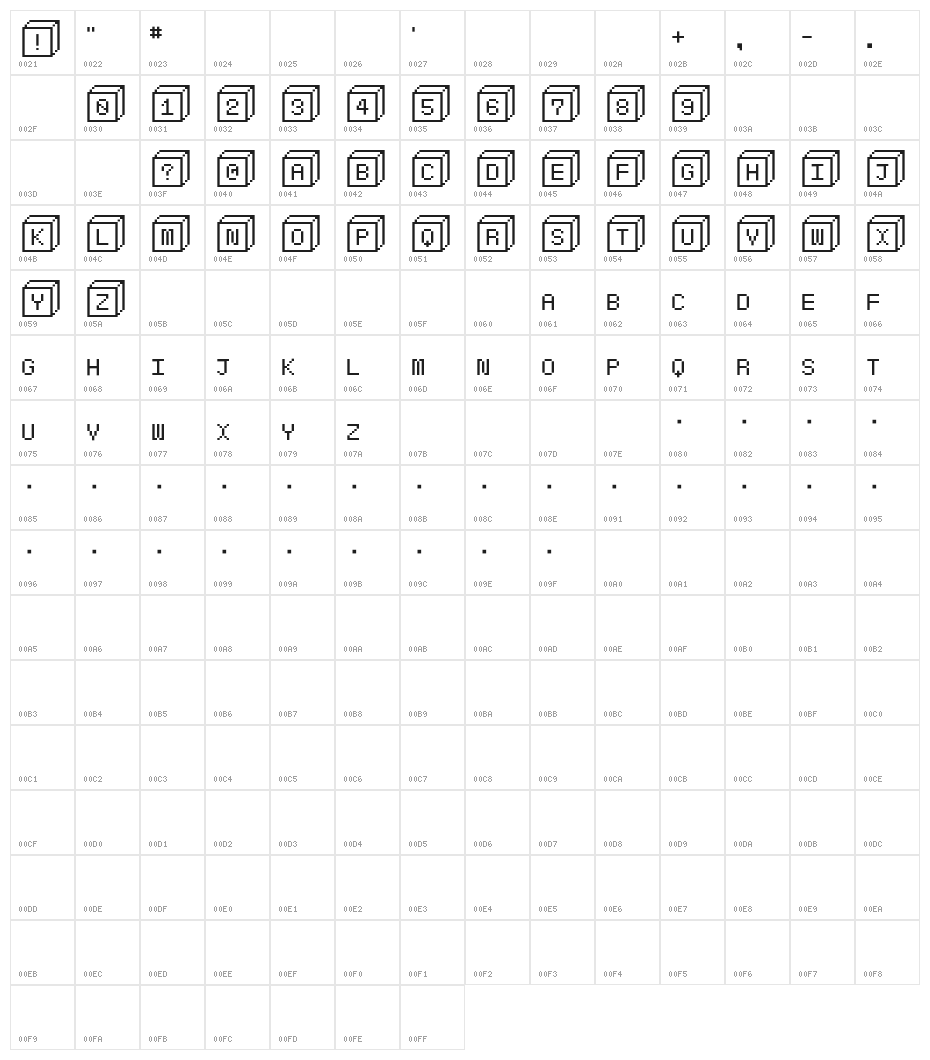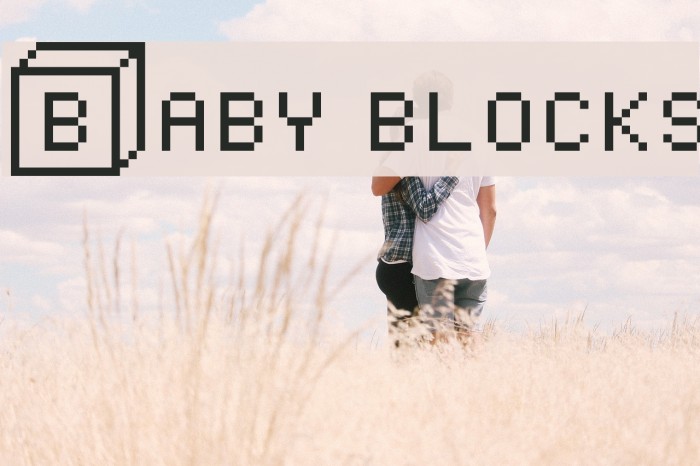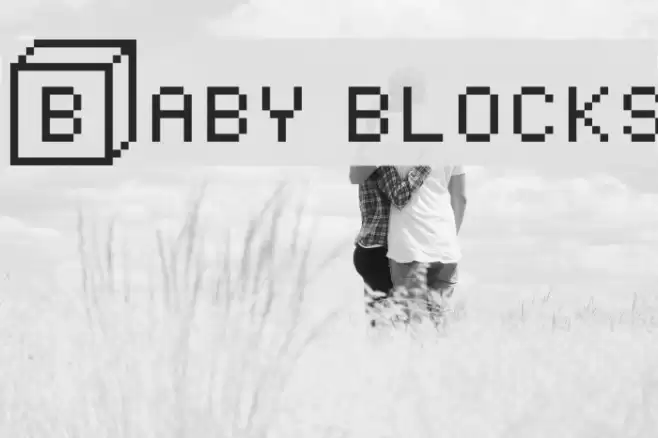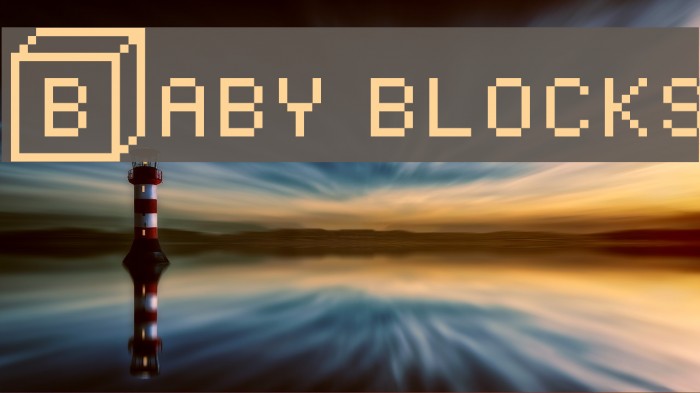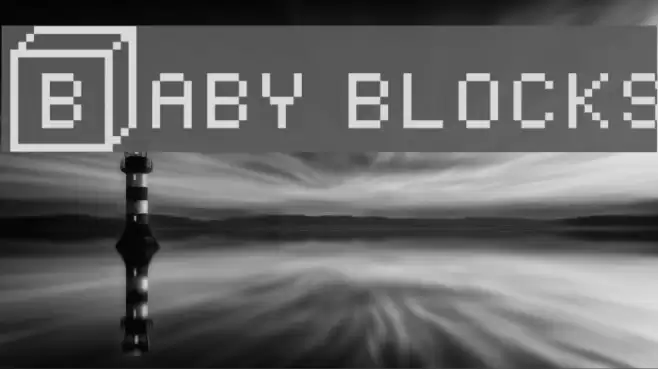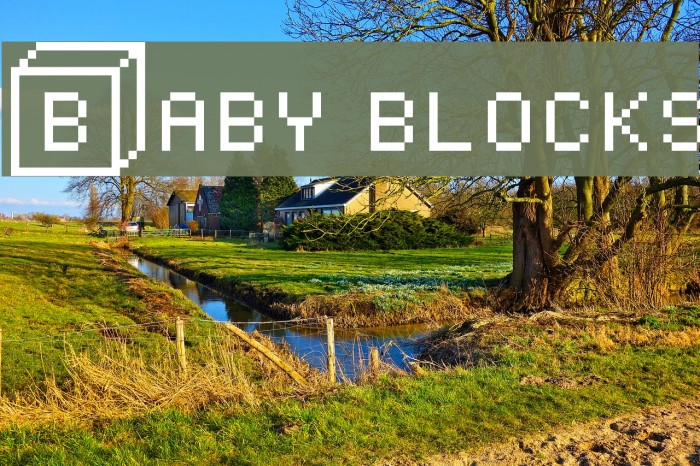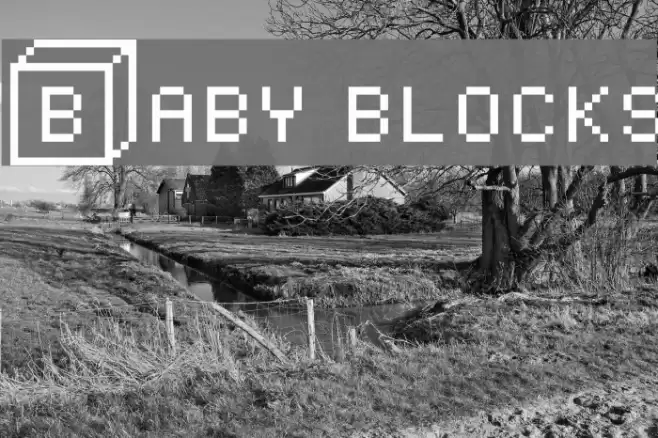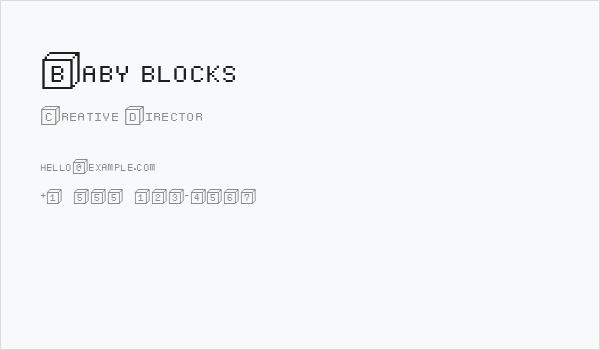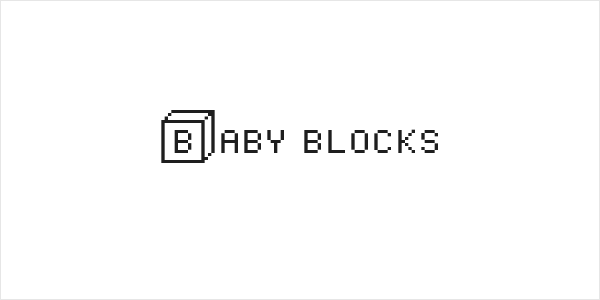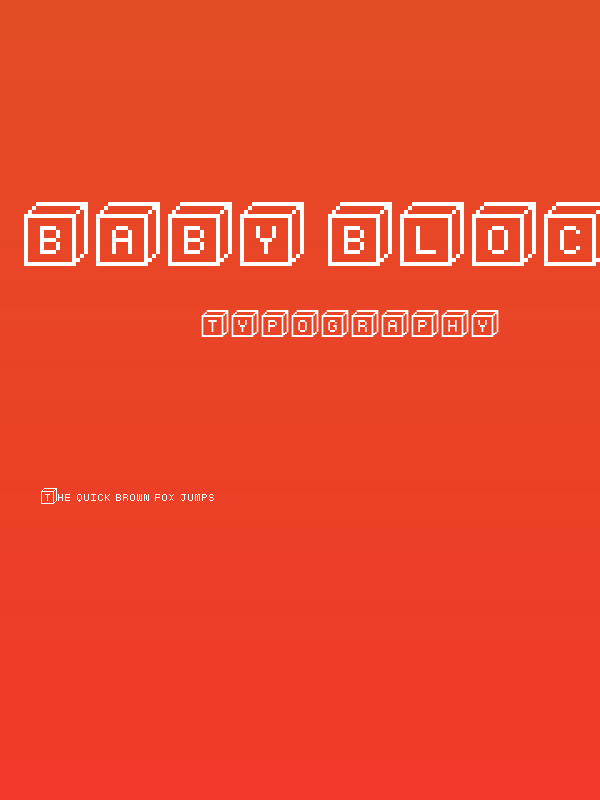
Baby blocks Font
Baby blocks Description
This playful and decorative font mimics the appearance of children's building blocks, with each character encased in a three-dimensional cube. The design is bold and blocky, with a pixelated style that adds a retro, digital feel. The uppercase letters are prominently displayed, while the lowercase letters are absent, emphasizing a simplistic and straightforward aesthetic. The numbers and special characters follow the same blocky, pixelated design, maintaining consistency throughout the set. The font's unique style makes it ideal for projects aimed at children or those seeking a nostalgic, playful touch.
| Overall Style | Playful, Retro |
| Proposed Projects | Ideal for children's books, educational materials, toy packaging, and playful graphic design projects. |